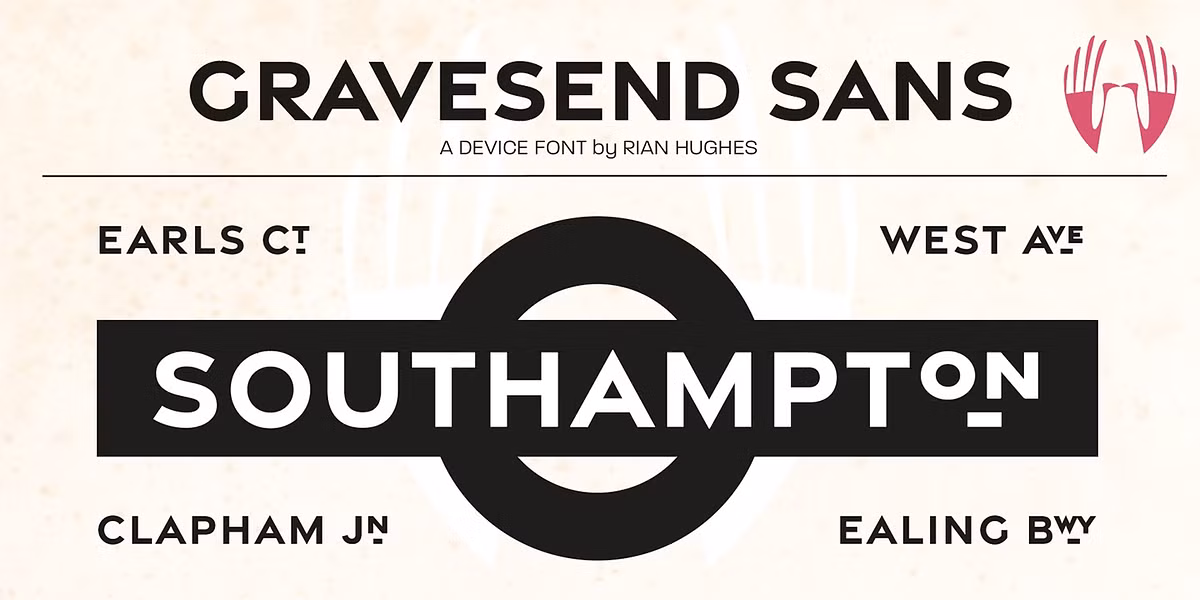
Gravesend Sans: Elegant Geometric Sans Serif Font Inspired by Railway Signage
Gravesend Sans is a sans serif font. Gravesend Sans gets ideas from the typefaces that Southern Railway used on signs, between 1923 and 1948. Gravesend Sans shows the look of early twentieth century railway design. Gravesend Sans mixes function with a style. Gravesend Sans has a shape and an inline style that makes reading. I think Gravesend Sans is a choice, for designers and typographers. I like how Gravesend Sans feels like a piece of railway history.
I see the design of Gravesend Sans uses shapes and clean lines. Those shapes and lines give Gravesend Sans a look. I notice Gravesend Sans balances form and function. Gravesend Sans gives clear easy to read text in uses. The inline details add a bit of class. Gravesend Sans works as a typeface. Also looks stylish.
Geometric Influences
Geometric sans serifs are simple and efficient. Gravesend Sans shows that efficient style. Gravesend Sans builds the letterforms from shapes. The basic shapes help the letters stay clear. The clean curves and sharp angles of Gravesend Sans give a look that feels both modern and nostalgic. I see the curves and sharp angles. I think they work well.
Distinctive Features
I like the way Gravesend Sans includes arrows and manicules and the short ligatures that Gravesend Sans adds. The real arrows are useful. The real arrows also add options to the palette that designers can use. The real arrows guide the reader eye. I find the real arrows help the eye move across the page. The manicules are useful. The manicules also add options to the palette that designers can use. The manicules add a fun touch. I notice the manicules bring a light feel. The fun touch, from the manicules can boost user interest, in print and digital media.
Character Sets
Gravesend Sans offers a set of characters that covers design needs. Gravesend Sans includes the letters, the lowercase letters, the numbers, the punctuation marks and the special characters. This big set lets you use Gravesend Sans for tasks. Gravesend Sans works for signs for brand work and, for design. I use Gravesend Sans when I need a font.
Support for Different Languages
In addition, to the primary character set Gravesend Sans supports languages. Gravesend Sans is a choice for projects. The wide array of characters, in Gravesend Sans lets designers make designs that work across languages. I have used Gravesend Sans when a project required languages and Gravesend Sans worked well. When I need a font that covers languages I reach for Gravesend Sans.
Gravesend Sans works well for uses. Gravesend Sans works in print and, in media. Here are the key use cases, for Gravesend Sans:
- Branding: Branding works well for logos and corporate identities. Branding helps a brand show its values and mission clearly.
- Signage: Inspired by railway signage Signage fits well with wayfinding systems. Signage also fits with public transport signage and other navigational aids.
- Editorial Design: Gravesend Sans makes the text clear. Gravesend Sans works for the magazines the brochures or the websites.
- Advertising: I notice that the fonts arrows and manicules help the call, to action parts in materials. The fonts unique features make the call, to action stand out.
Make your designs strong, by pairing Gravesend Sans with fonts that fit. Pairing Gravesend Sans, with the fonts gives a visual order. Below are some pairing ideas:
- Serif Fonts: Serif Fonts combine Gravesend Sans with a serif typeface such, as Merriweather or Playfair Display. Serif Fonts give the look that mixes old style.
- Display Fonts: I like to use Gravesend Sans for the headings or the standout text. I pair Gravesend Sans with the display font, like Bebas Neue. Gravesend Sans and Bebas Neue together make a contrast that catches the eye.
- Monospace Fonts: When I work on data designs I pair Gravesend Sans with a monospace font such, as Courier New. The pair creates an organized layout. The clean organized layout is easy to navigate.
Cameo Version
Gravesend Sans also has a Cameo variant that includes banner elements. I have used Gravesend Sans Cameo variant on a poster. The banner made the design stand out. When I need a font with a banner I pick Gravesend Sans Cameo variant. Gravesend Sans Cameo variant helps designers who want to add touches to their projects. Designers can use the banner elements in places. The graphic banner elements work in media graphics. The graphic banner elements work in event posters. The graphic banner elements improve the appeal.
I have tried the Cameo version of Gravesend Sans. I see how the Cameo version of Gravesend Sans lets me change parts of my designs. The Cameo version of Gravesend Sans lets me add elements and make designs that stand out. Whether I work on platforms or print media the Cameo version of Gravesend Sans gives me the tools I need to improve my work. The Cameo version of Gravesend Sans is easy to use.
Gravesend Sans is a typeface that looks like 20th century railway signs. Gravesend Sans has shapes and reads easily. Gravesend Sans fits design projects. If you are working on branding on signage or, on work Gravesend Sans can give you a look. I have used Gravesend Sans on a poster. The result was easy to read. The Cameo version of Gravesend Sans adds options, for designers. Embrace the elegance of Gravesend Sans in your next project and elevate your typography to new heights.